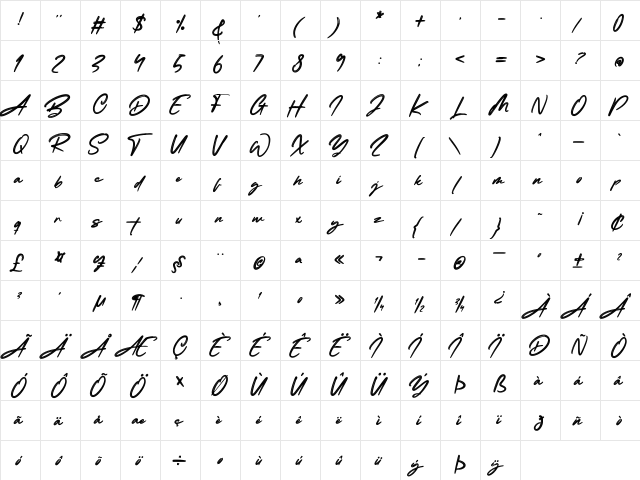
Blluebong Regular
| Foundry | Halymunt Studio |
| Designer | DENIS |
Design Context for Blluebong Typeface
Blluebong is a composed and adaptable typeface that performs quietly and consistently across a wide range of design contexts.